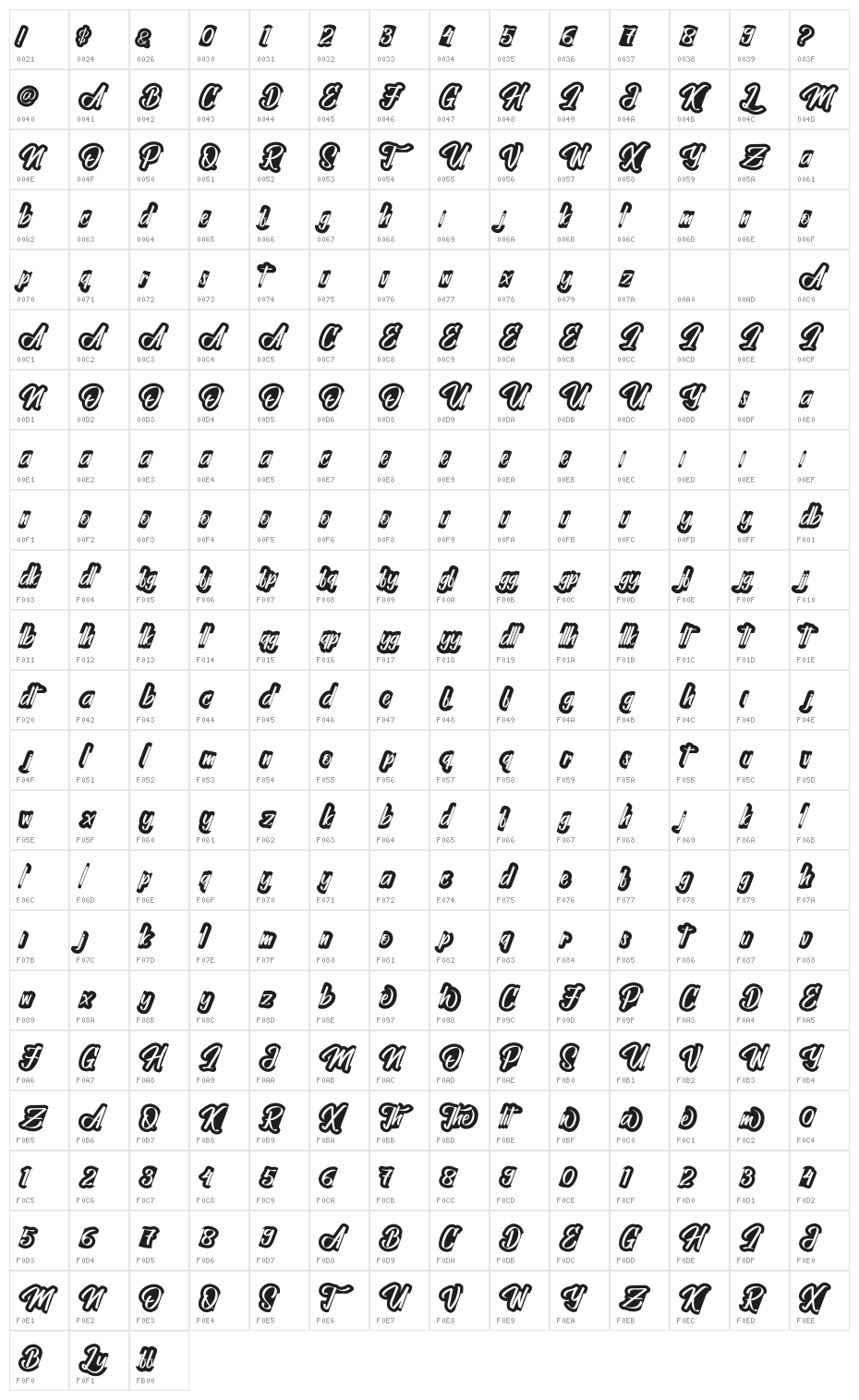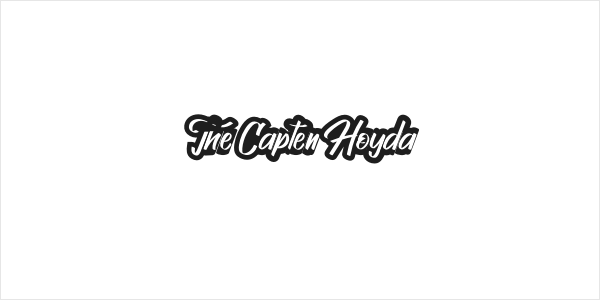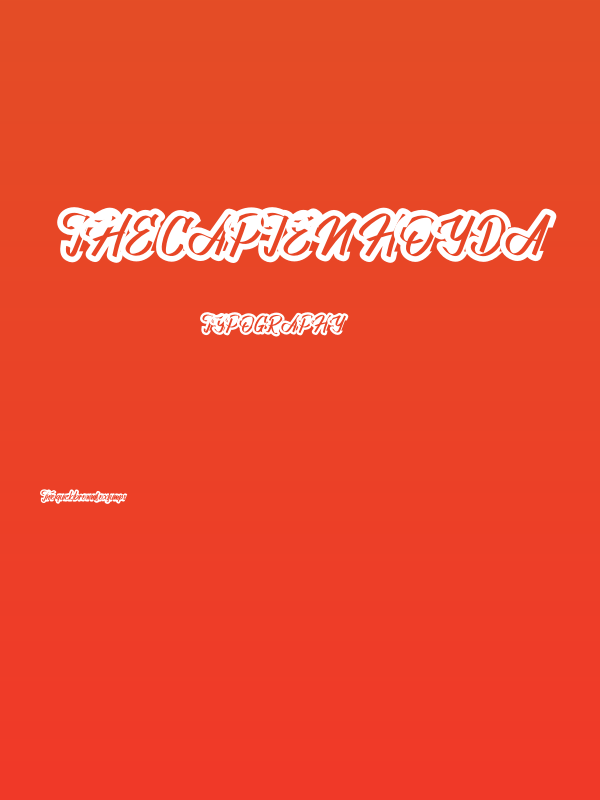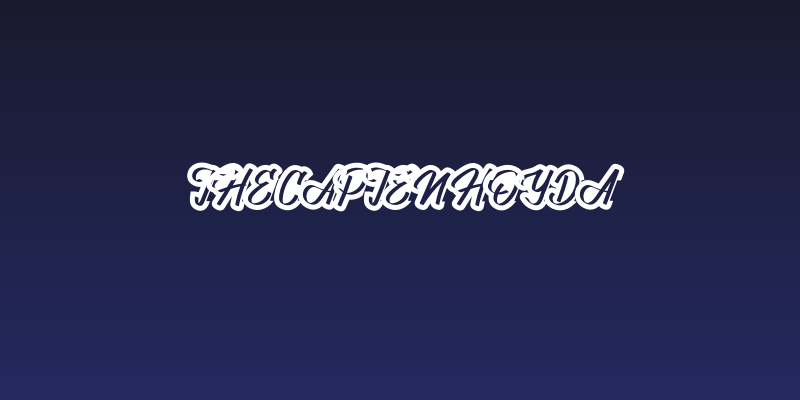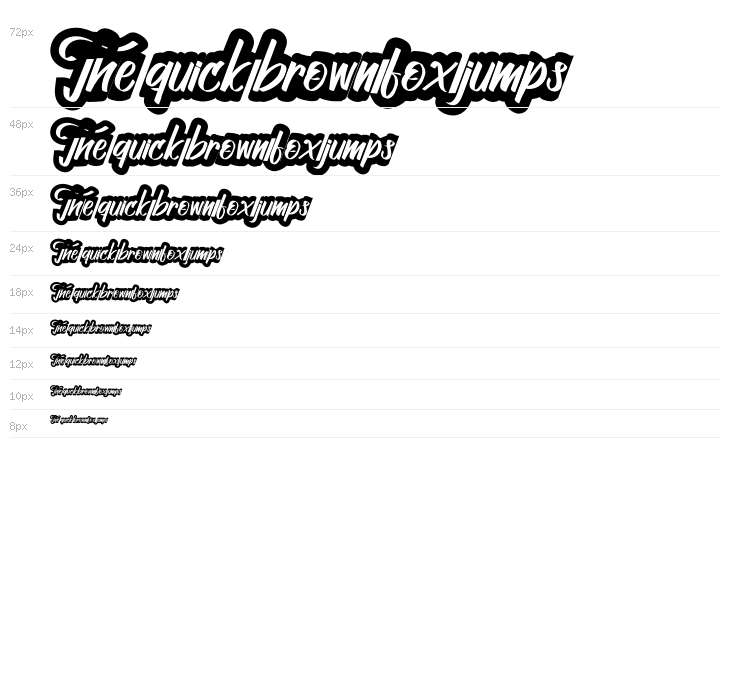
The Capten Hoyda Font
The Capten Hoyda Description
This font features a bold and dynamic script style with a strong presence. The letters are interconnected, creating a fluid and continuous flow that is both elegant and assertive. The thick strokes and shadow effect give it a three-dimensional appearance, enhancing its visual impact. The uppercase letters are particularly striking, with dramatic curves and flourishes, while the lowercase letters maintain a consistent style, ensuring readability. The numerals are equally bold, matching the overall aesthetic. This font is ideal for making a statement and capturing attention.
| Use Case | Logos, Headlines, Branding |
| Proposed Projects | This font is perfect for branding projects, logo designs, event invitations, and any creative work that requires a bold and stylish script. |